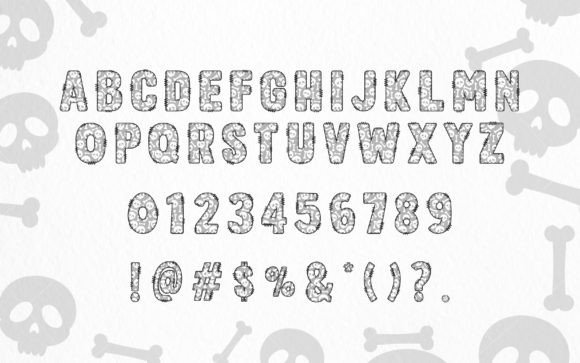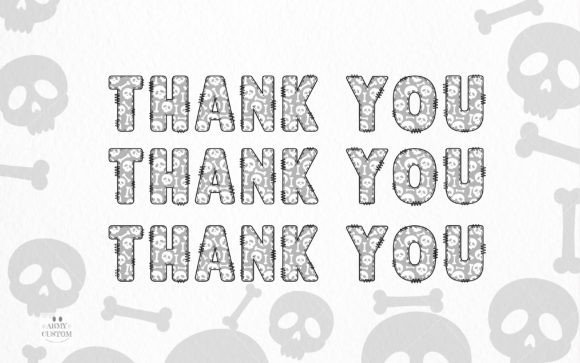
Introduction to Halloween Army Skull Font
Do you remember that moment when you’re working on a creative project and you’re stuck, searching for that perfect design element to make it truly special? You know, that one thing that takes your project from ordinary to extraordinary. For designers like you, finding that perfect design resource can be a game-changer. That’s where the Halloween Army Skull Font comes in – a spellbinding and distinct font that adds an unmistakable touch of magic to your creations.
Whether you’re working on arts and crafts projects, scrapbooking, or designing stationery and cards, this font is a must-have in your design toolkit. With its high-quality design and transparent background, you can easily add it to your projects and make them stand out. The Halloween Army Skull Font is available as a free download, making it an accessible design resource for designers of all levels.
Key Features of Halloween Army Skull Font
- Unique and spooky design ideal for creative projects and Halloween-themed designs.
- High-quality font with a transparent background, allowing for versatile design applications.
- Features a bold and striking skull design, perfect for adding a touch of edginess to any creative project.
- Can be used in various design elements, such as logos, graphics, and typography, to create a cohesive and spooky visual identity.
Honest Review: Halloween Army Skull Font
I recently had the chance to work with the Halloween Army Skull Font, and I must say it’s a unique addition to any design project. The font’s bold, edgy design ✨ is perfect for creating a spooky atmosphere, making it ideal for Halloween-themed creative projects.
- Unique and bold design ✨
- Limited character set, may not be suitable for lengthy text-based projects ⚠️
- Not ideal for professional or corporate designs due to its edgy nature
Overall, I’m impressed with the Halloween Army Skull Font. It’s a great resource for designers looking to add some edge to their Halloween-themed projects. However, keep in mind its limitations, and use it accordingly.
Getting the Most Out of Halloween Army Skull Font
To get the most out of the Halloween Army Skull Font, use it on a transparent background to create a spooky effect. You can also experiment with different font sizes and colors to achieve the desired look.
The Halloween Army Skull Font is perfect for:
- Halloween-themed designs
- Spooky invitations and party decorations
- Horror movie posters and trailers